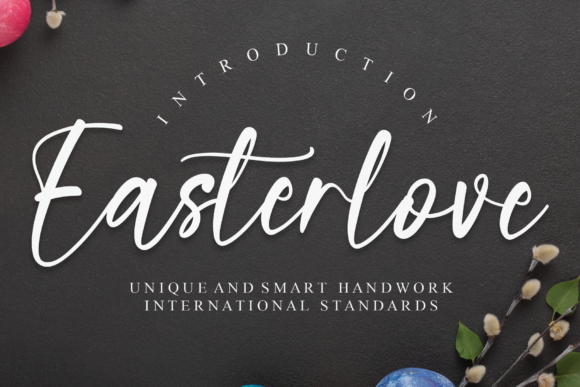
Easterlove Font: Add a Touch of Personalized Flair to Your Crafting Projects
Are you a crafter or designer looking for a unique and personalized font to add a special touch to your projects? Look no further than the Easterlove Font! This beautiful, flowing handwritten font is perfect for a variety of crafting projects, from DIY cards and invitations to scrapbooking and paper crafting.
What is Easterlove Font?
Easterlove is a stunning handwritten font that exudes elegance and sophistication. Its flowing lines and curves give it a whimsical and romantic feel, making it perfect for projects that require a personal touch. The font is highly legible and versatile, making it suitable for a wide range of applications, from digital designs to print materials.
Features of Easterlove Font
• Flowing Handwritten Style: Easterlove Font features a beautiful, flowing handwritten style that adds a touch of elegance to any project.
• Highly Legible: The font is highly legible, making it perfect for use in a variety of applications, from digital designs to print materials.
• Versatile: Easterlove Font is highly versatile and can be used for a wide range of projects, from DIY cards and invitations to scrapbooking and paper crafting.
• Personalized Look: The font’s unique and personalized look makes it perfect for projects that require a special touch.
Uses of Easterlove Font
Easterlove Font is perfect for a variety of crafting projects, including:
• DIY Cards and Invitations: Add a personal touch to your cards and invitations with the Easterlove Font.
• Scrapbooking: Use the font to add captions and journaling to your scrapbook pages.
• Paper Crafting: Easterlove Font is perfect for paper crafting projects, such as gift tags, journal pages, and paper flowers.
• Digital Designs: Use the font in your digital designs, such as social media graphics, blog posts, and digital invitations.
Tips for Using Easterlove Font
Here are some tips for using Easterlove Font in your crafting projects:
• Experiment with Colors: Experiment with different colors and color combinations to add depth and interest to your projects.
• Mix and Match Fonts: Mix and match Easterlove Font with other fonts to create a unique and personalized look.
• Use in Combination with Images: Use Easterlove Font in combination with images and graphics to add a personal touch to your projects.
• Play with Sizes: Play with different font sizes to create visual interest and add emphasis to your text.
In conclusion, Easterlove Font is a beautiful and versatile handwritten font that is perfect for a variety of crafting projects. Its flowing lines and curves give it a whimsical and romantic feel, making it perfect for projects that require a personal touch. With its highly legible and versatile design, Easterlove Font is a must-have for designers and crafters looking to add a special touch to their projects.